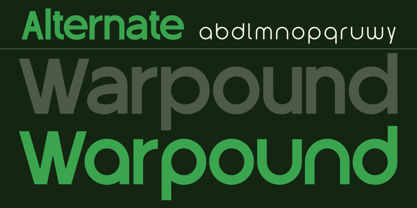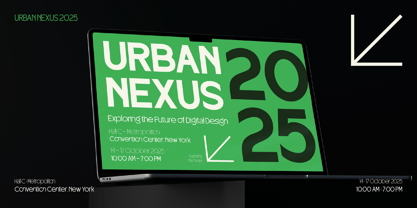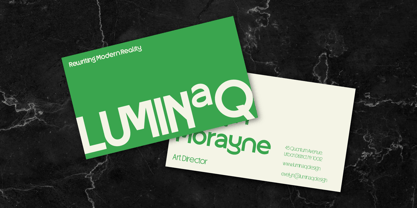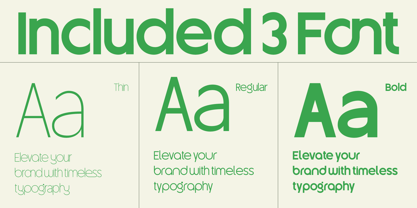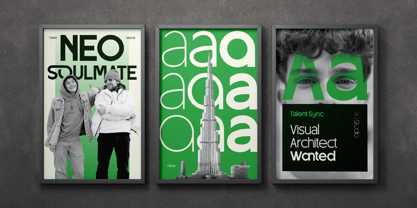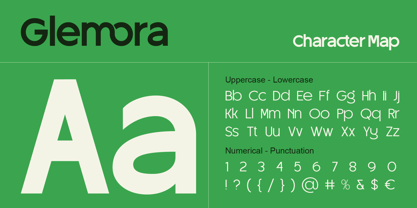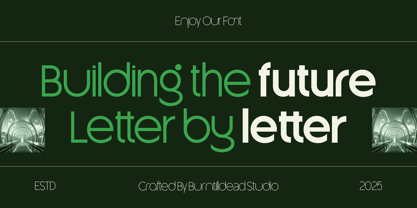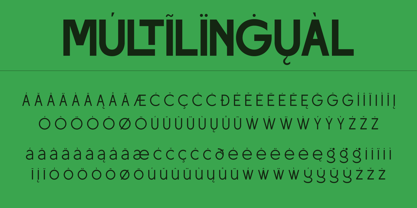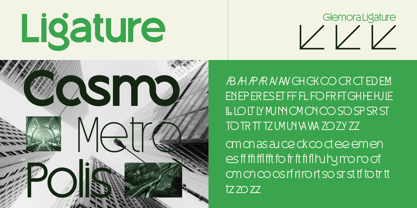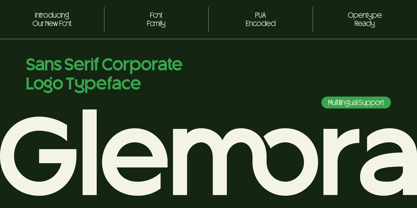
Glemora
The Glemora Font Family was designed by Meidy Meichico and published by Artisan Themes. Glemora contains 3 styles and family package options. More about this family
Meet Glemora, a modern sans serif typeface designed for branding that speaks confidence and clarity. With smooth curves, clean lines, and a timeless geometric touch, Glemora gives your design a professional yet approachable vibe.
Perfect for logos, corporate identity, websites, business cards, and even social media graphics, this font brings out that balance of modern elegance and trustworthiness.
Glemora comes with 3 styles (Thin, Regular, Bold), making it super versatile for headlines, body text, and impactful statements. It’s PUA encoded and multilingual-ready, so you can easily use it in any creative project without hassle.
If you’re looking for a typeface that elevates your brand with a sleek and timeless personality, Glemora is the one.
Glemora